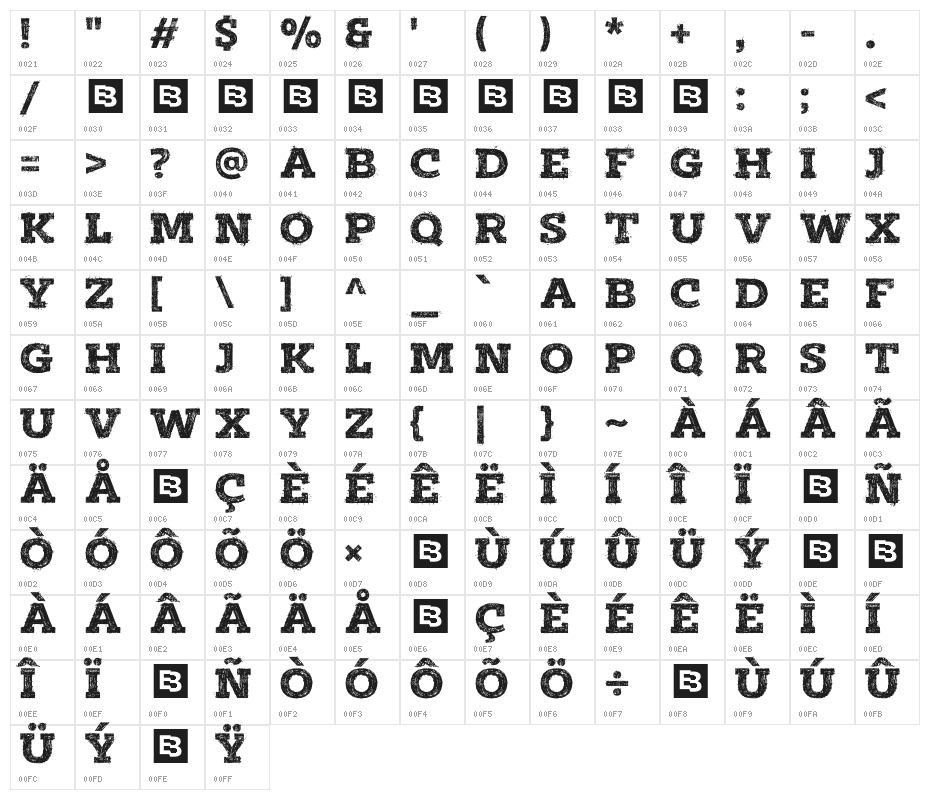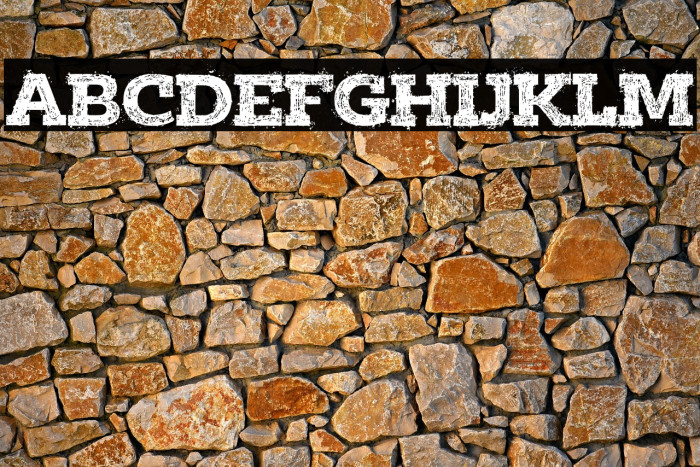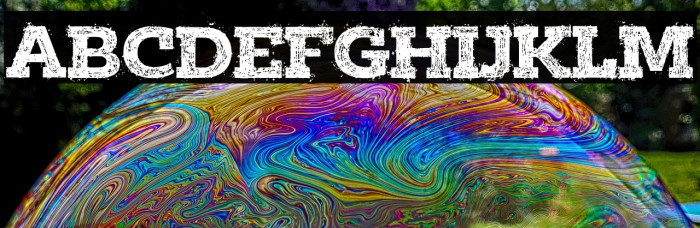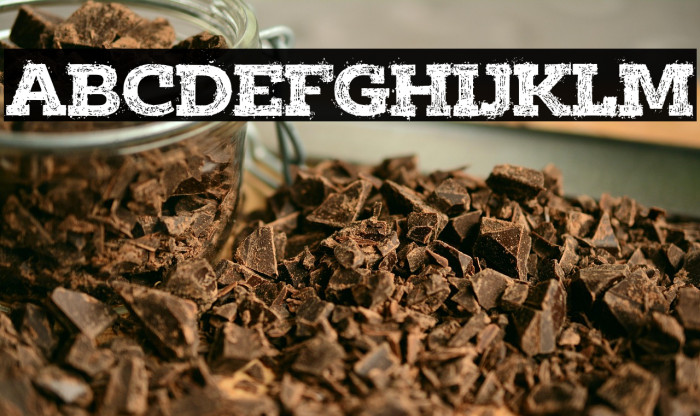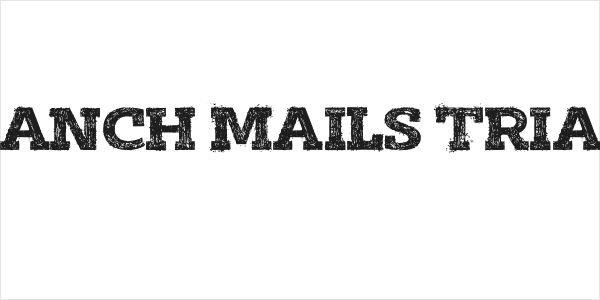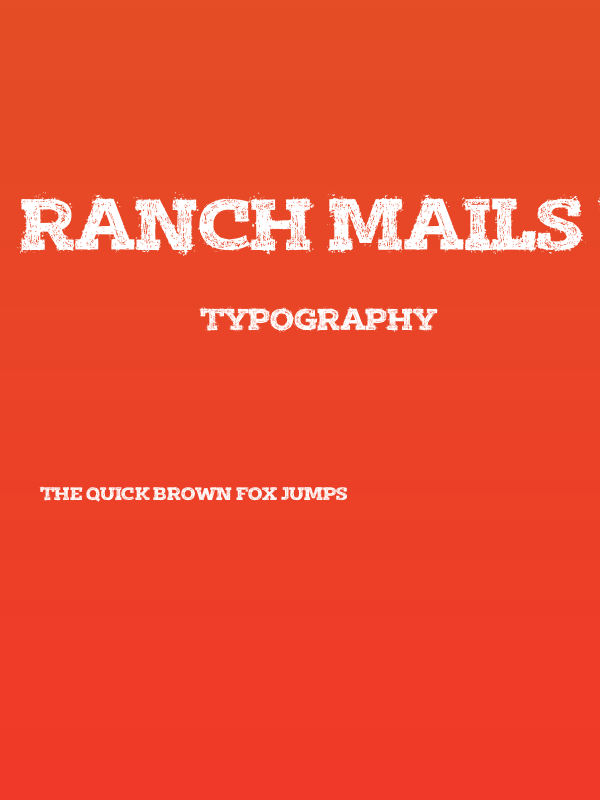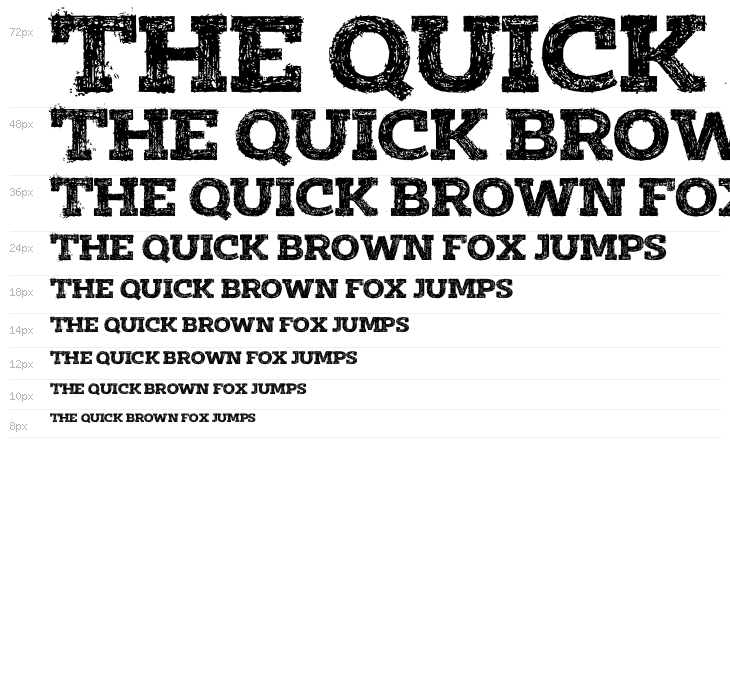
Ranch Mails Trial Font
Ranch Mails Trial Description
This font features a rugged, distressed appearance, reminiscent of vintage typewriter or letterpress styles. Each character is marked by a textured, worn effect, giving it a unique, handcrafted feel. The uppercase letters are bold and prominent, while the lowercase letters maintain the same distressed style, ensuring consistency across the typeface. The numbers and special characters follow suit, providing a cohesive look throughout. This font's distinctive style makes it ideal for projects that require a rustic or retro aesthetic, such as posters, branding, or packaging designs.
| Proposed Projects | Ideal for vintage-themed posters, branding, packaging designs, and any project requiring a rustic aesthetic. |